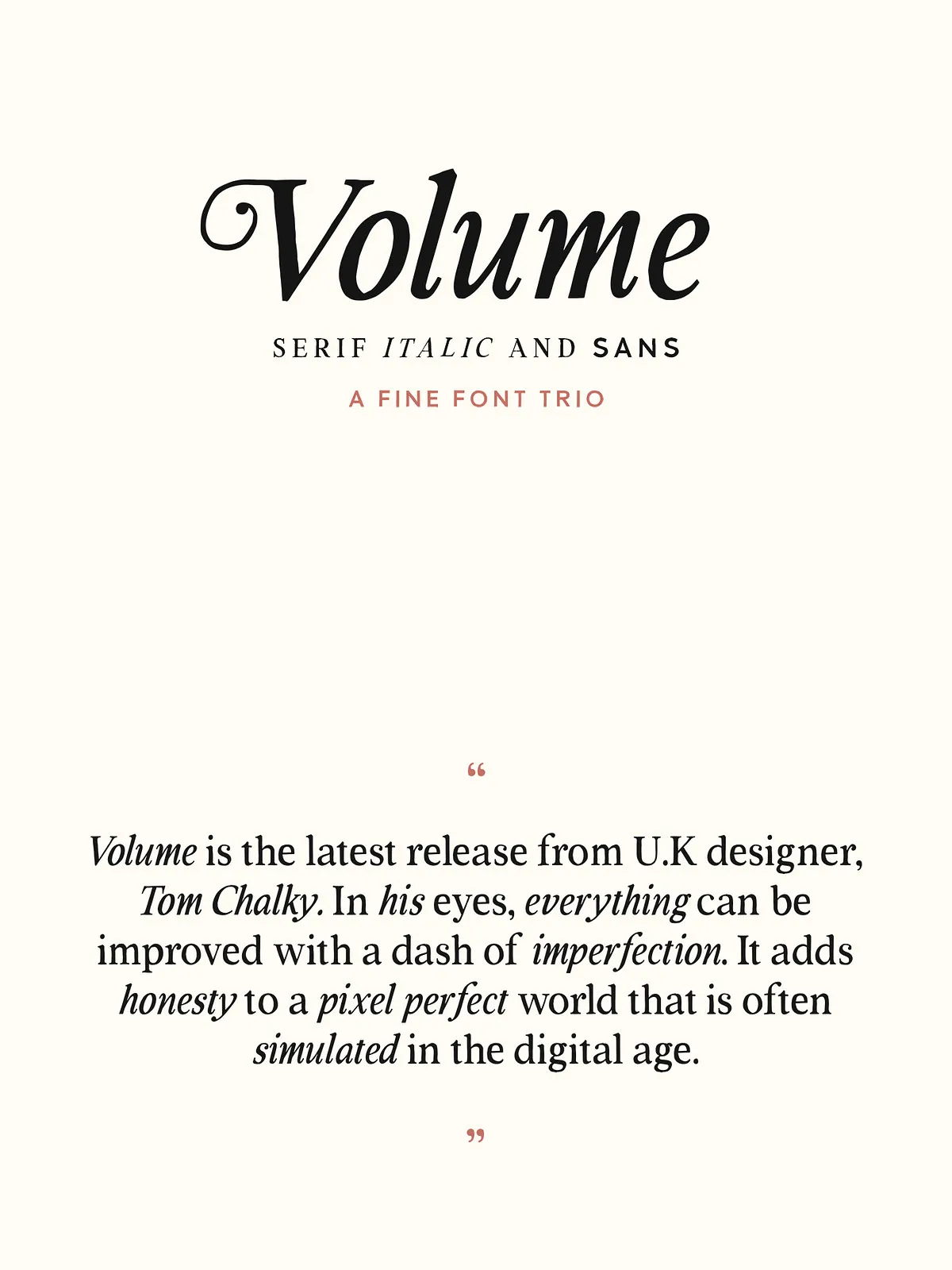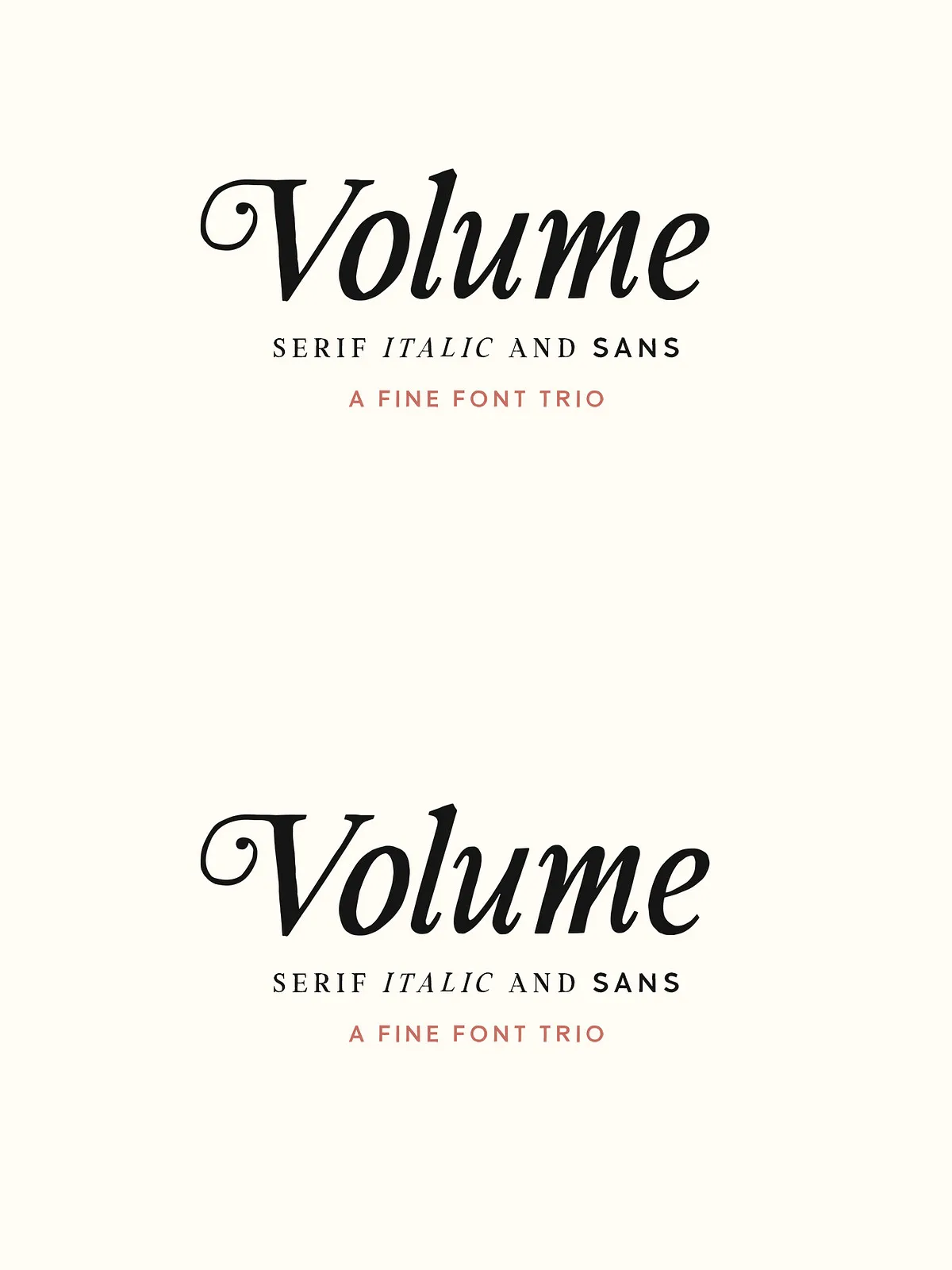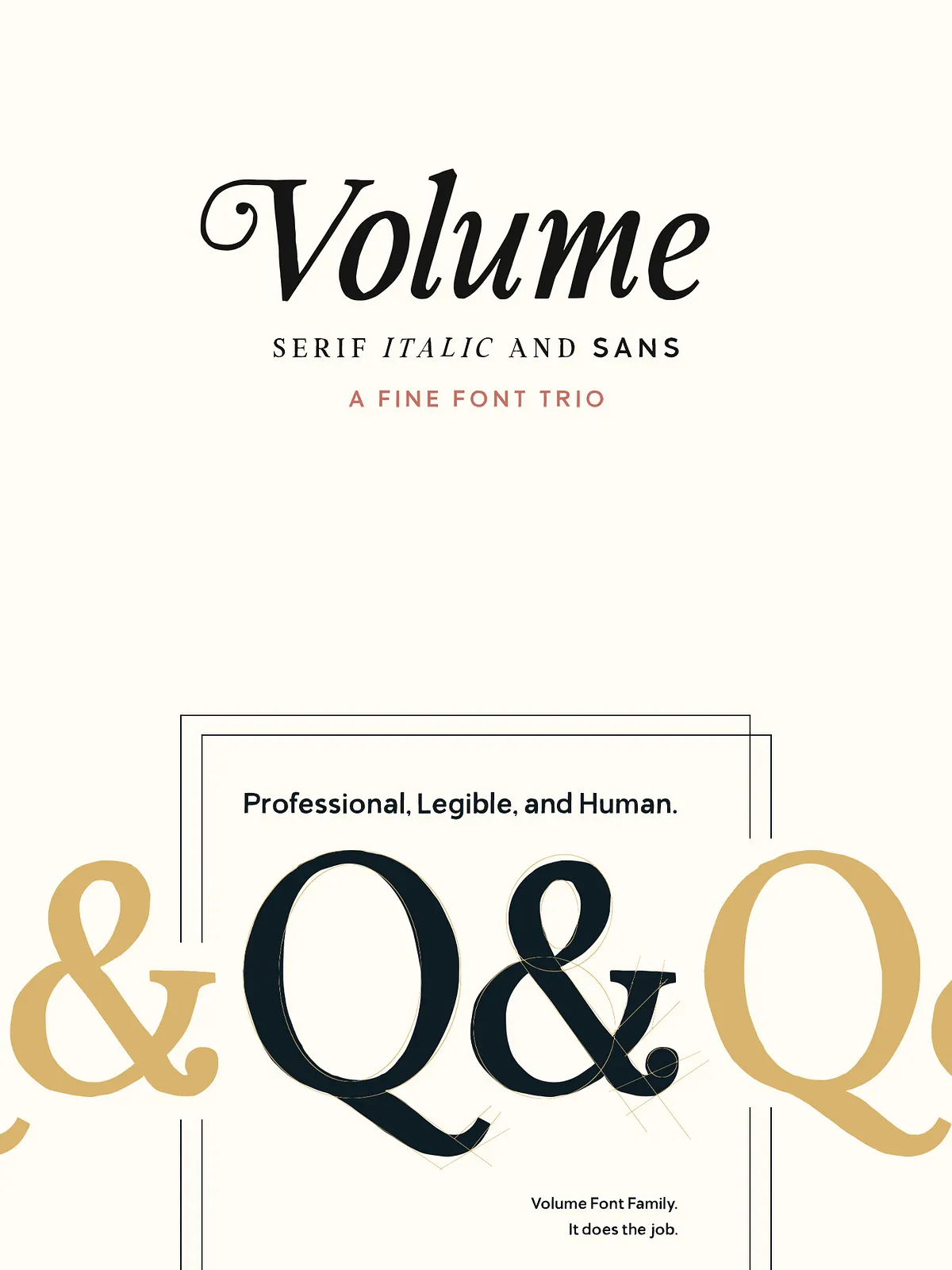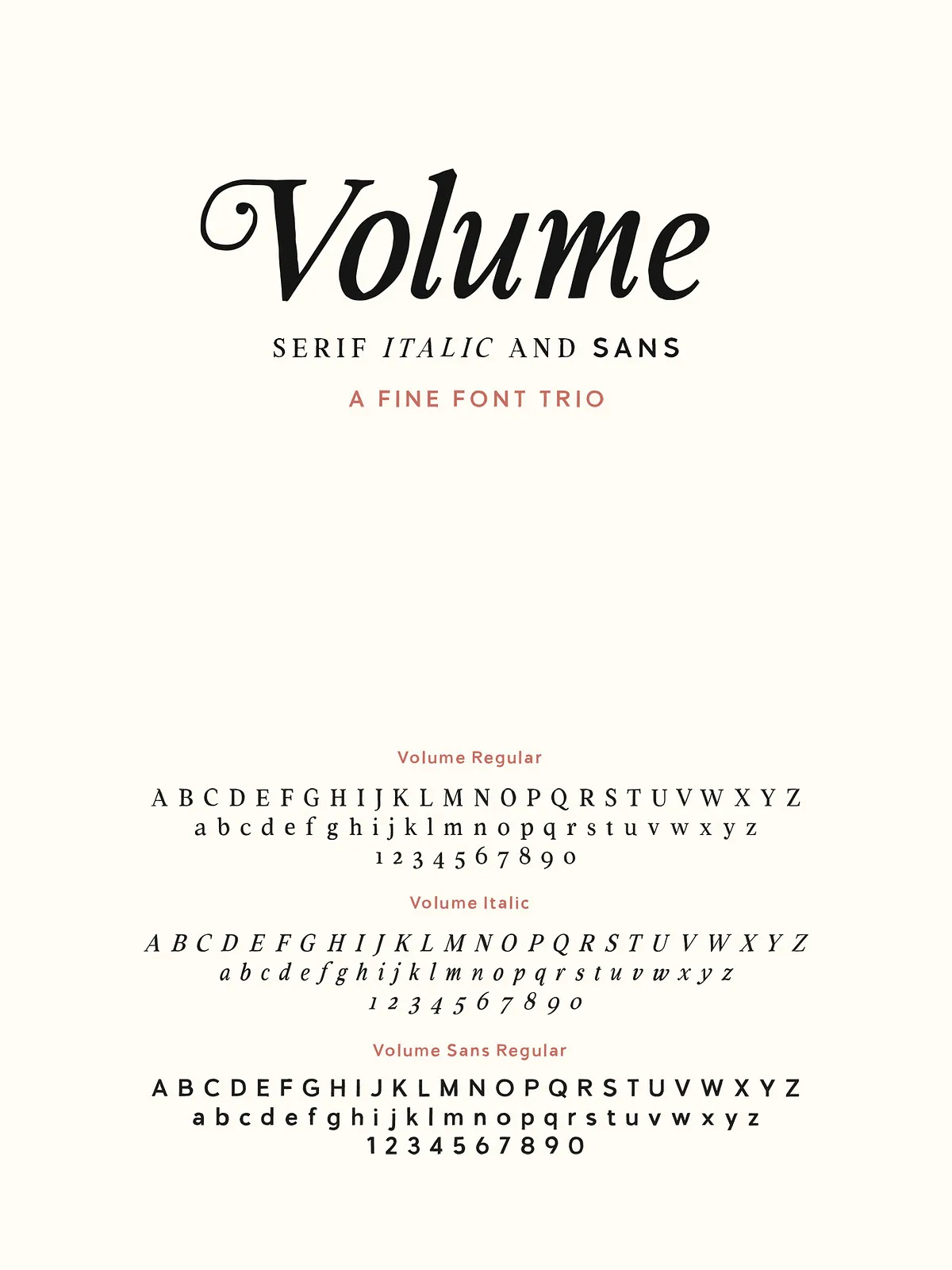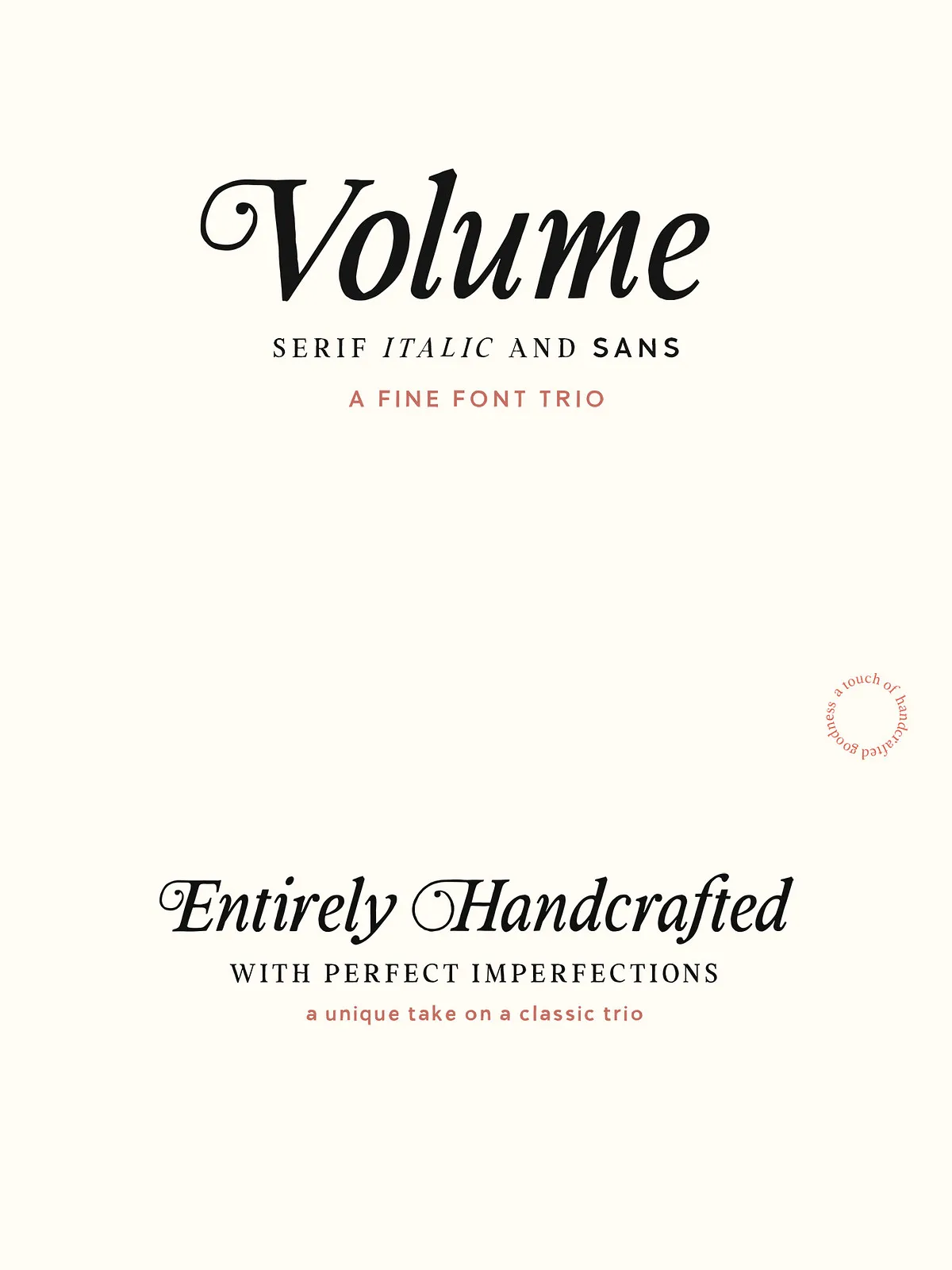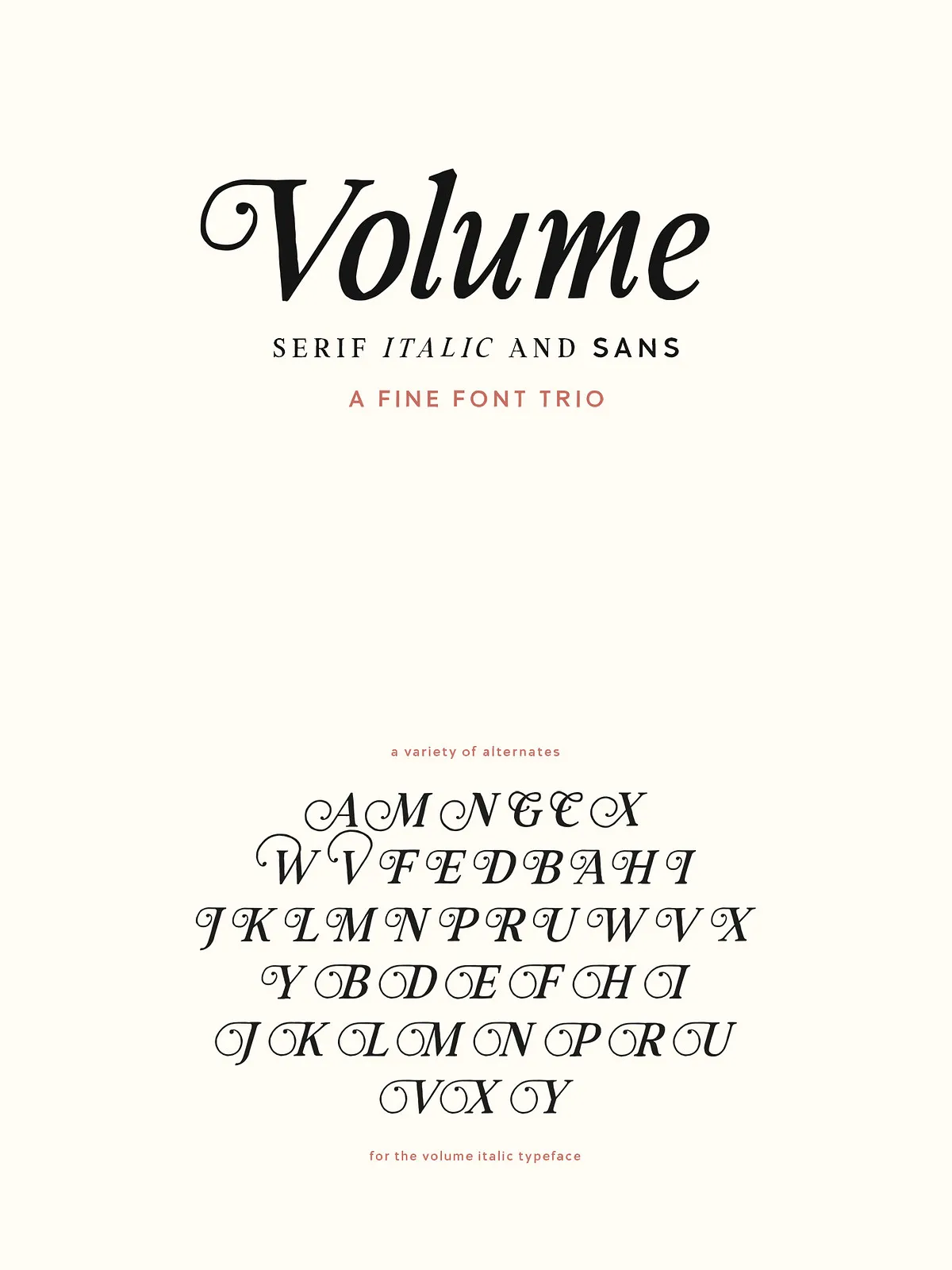
Volume – Handcrafted Font Trio
Introducing Volume! A unique take on a classic trio; A serif, an italic, and a sans. Professionally imperfect, Volume takes a formal approach to the handcrafted genre of font design. A versatile family, suitable for a vast array of design briefs!
Volume TC Regular
Volume TC Regular Italic (Real Italics)
Volume TC Sans